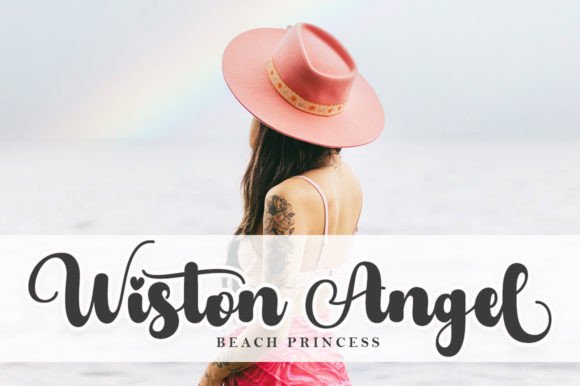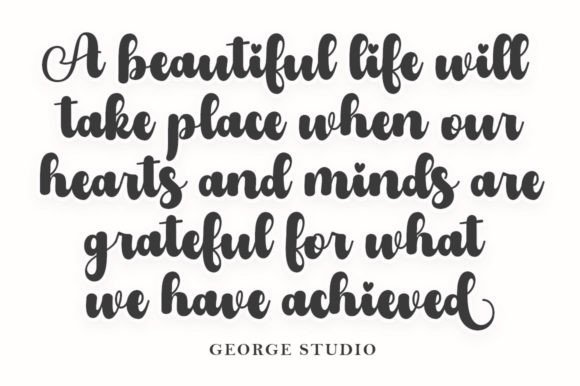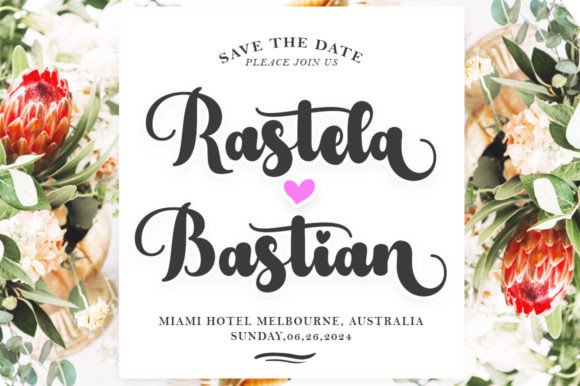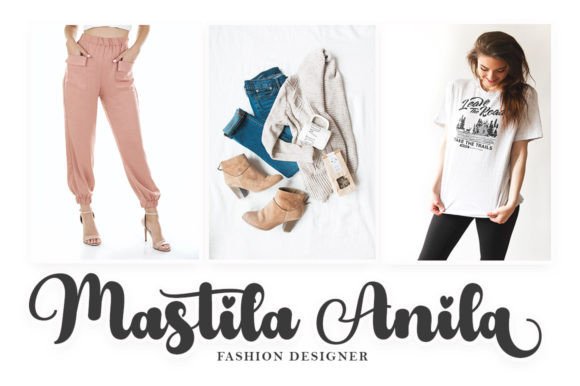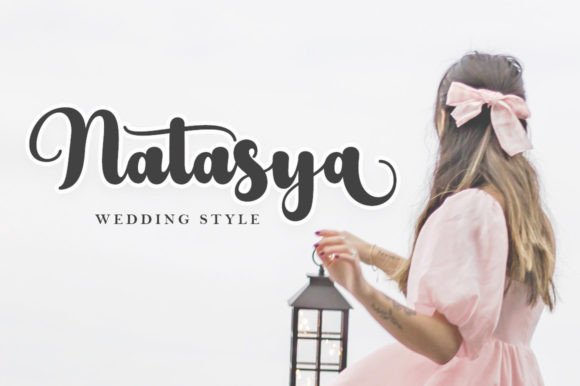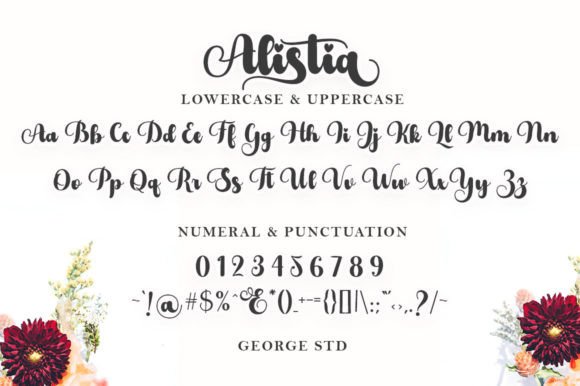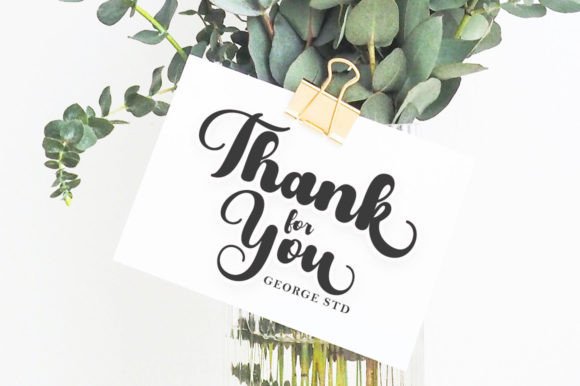
Alistia Font
About Alistia Font
“Alistia” is a bold and expressive handwritten font that combines thick, solid lines with conservative curves. This unique blend makes it easy to read while maintaining a balance between fun and professionalism. The font’s versatility allows it to be suitable for a wide range of design projects.
The bold and expressive nature of “Alistia” makes it stand out and capture attention. The thickness of its lines ensures legibility, making it a practical choice for various applications. Whether you’re working on posters, headlines, branding, or other design projects, this font adds a touch of character.
Imagine “Alistia” on a poster, where its bold and expressive letters make a statement and draw viewers in. Picture it in a headline, creating a bold and impactful introduction to your content. Envision this font used in branding, where its unique style contributes to a memorable and distinct identity.
The balanced mix of fun and professionalism in “Alistia” offers designers and creators a versatile tool for different creative endeavors. It can add a touch of personality to formal documents or infuse a sense of professionalism into more casual designs.
Whether you’re a graphic designer looking for a font that makes a bold statement or an individual seeking a unique typeface for your creative projects, “Alistia” invites you to explore its possibilities. Let it be the key element that adds flair and character to your designs.